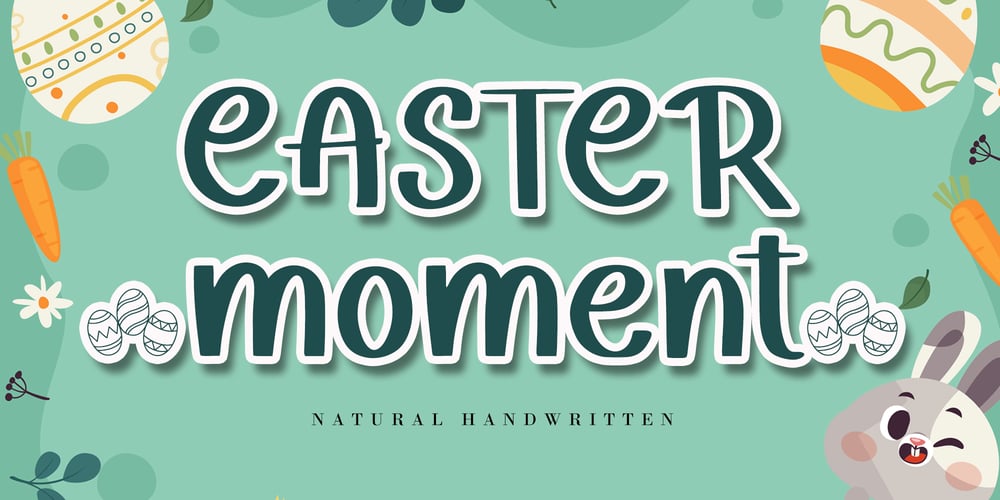
Easter Moment Font Family was designed by Agung Eko Nugroho and published by AEN Creative Studio. Easter Moment contains 2 styles and family package options. Easter Moment is a natural cute handwritten font. It is ideal for Easter-themed crafting, greeting cards, or any other design that may need a lovely, personalized touch! This font is PUA encoded which means you can access all of the glyphs and swashes with ease!